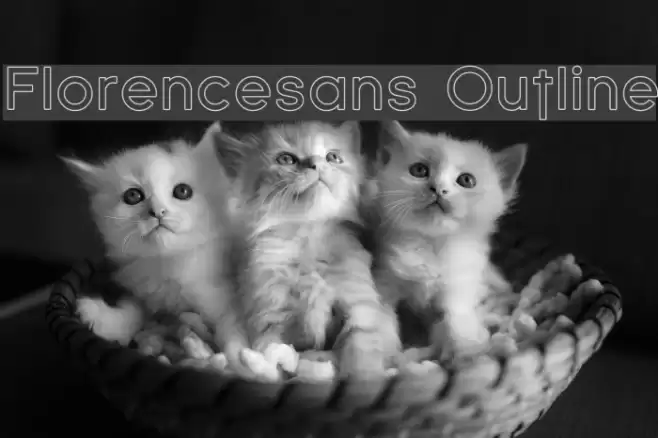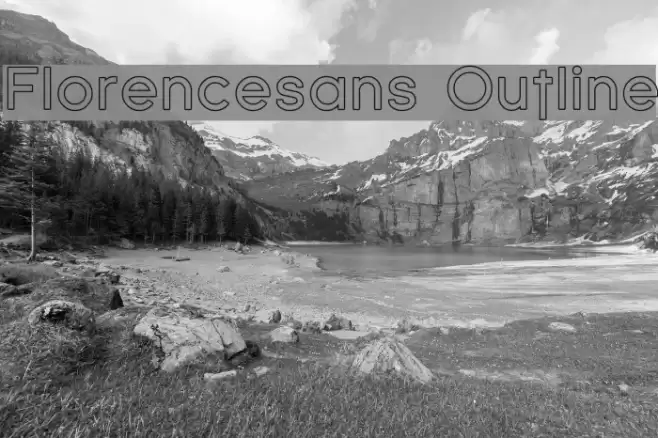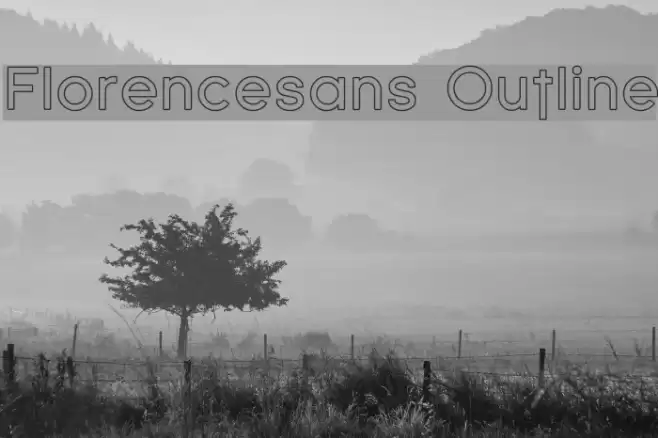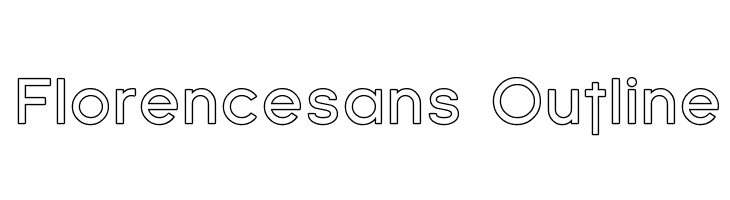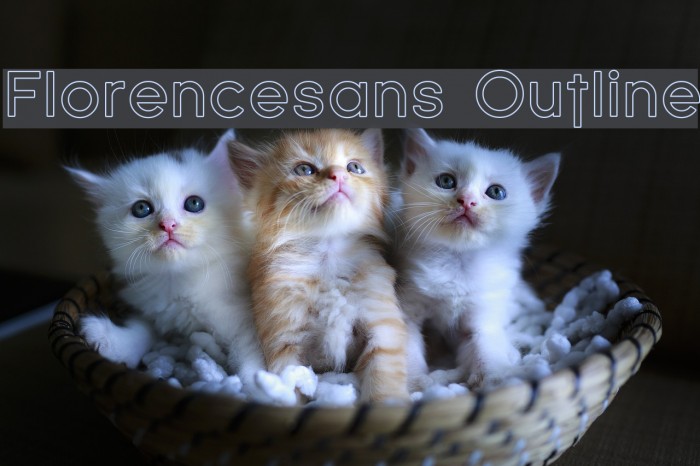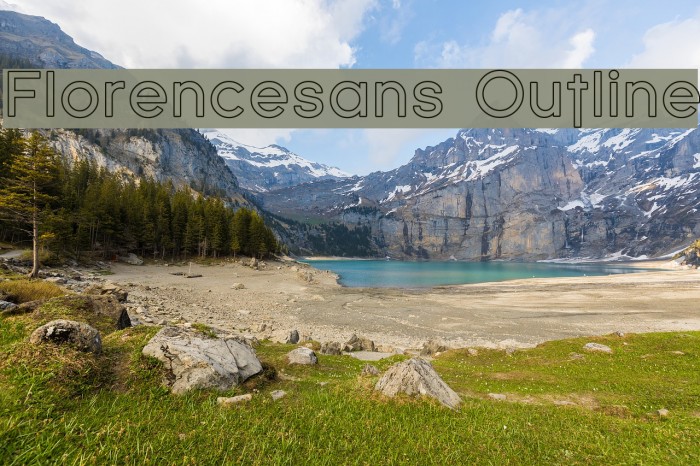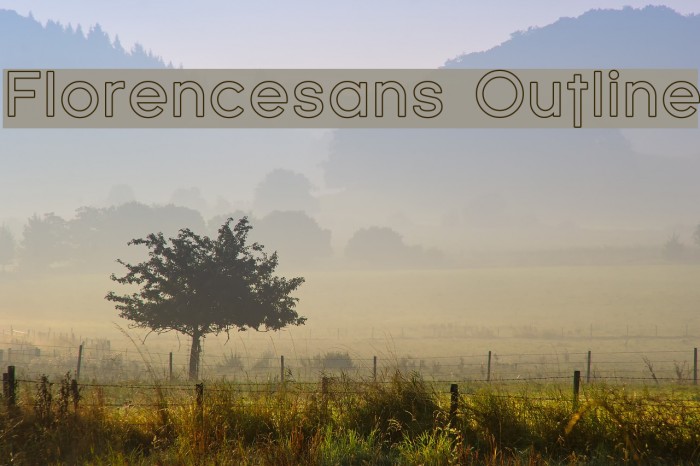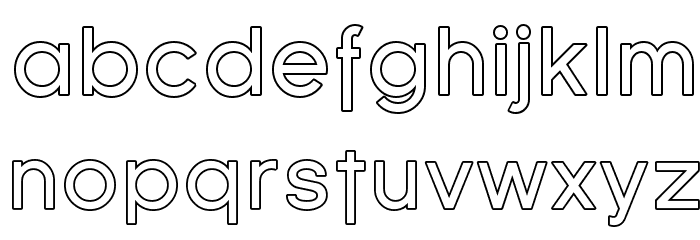
Florencesans Outline
This font features a clean, modern sans-serif style with an outline design that gives it a unique and contemporary look. The characters are evenly spaced and maintain a consistent line thickness throughout, creating a balanced and harmonious appearance. The uppercase and lowercase letters are well-proportioned, with a geometric influence evident in the circular forms of letters like 'O' and 'Q'. The numerals are clear and legible, making them suitable for various applications. Special characters are included, maintaining the same outline style, which adds to the font's versatility. This font is ideal for projects that require a modern and stylish touch, such as branding, advertising, and digital media.
A modern, outline sans-serif font with geometric influences and consistent line thickness.
- Proposed Projects: Ideal for branding, advertising, digital media, and any project needing a modern, stylish touch.
- Use Case: Headlines, Logos, Digital Media